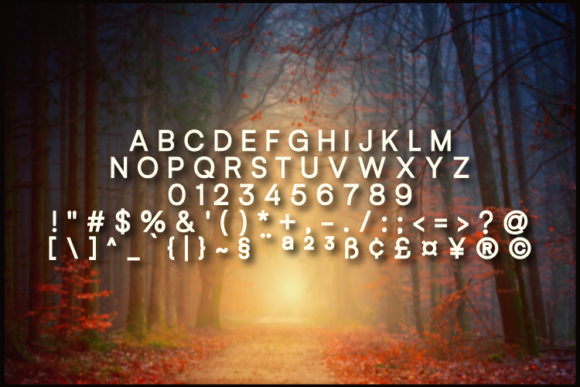
Introduction to Leonare Bold Font
Enter Leonare Bold Font, a stunning sans serif font that exudes a down-to-earth charm, making it an ideal choice for any design endeavor. Whether you’re working on a high-profile project or a personal creative pursuit, Leonare’s versatility and readability ensure it shines on any background – from a busy, transparent background to a simple, elegant design.
Key Features of Leonare Bold Font
- High-quality, professional font suitable for creative projects, including logos, branding, and typography.
- Unique, bold design with a transparent background, making it ideal for use on digital products, web design, and UI/UX projects.
- Designed with a high resolution of 300 DPI, ensuring crisp and clear text, even when scaled up or down.
- Perfect for use in a variety of contexts, including print materials, digital displays, and online content.
- Easy to customize and pair with other fonts, making it a versatile design element for creative projects.
Honest Review: Leonare Bold Font
As a designer, I’m always on the lookout for high-quality design resources to elevate my creative projects. The Leonare Bold Font is one such find that caught my attention recently.
Here are some aspects that work well for this font: ✨
- It’s incredibly versatile and suitable for various design applications, from headings to body text.
- Its bold and modern design makes it perfect for creating eye-catching visuals.
- The font doesn’t come with a transparent background option, which might limit its use in certain design scenarios.
- While it’s a high-quality font, it may not be suitable for designs requiring a more minimalist or subtle approach.
Overall, the Leonare Bold Font is a solid addition to any designer’s toolkit. Its modern design and free download make it an attractive option for creative projects. While it may have some limitations, its strengths far outweigh its weaknesses, making it a valuable resource for designers looking to add some bold flair to their designs.
Leonare Bold Font is a versatile and high-quality design resource that can elevate your creative project. This font is available for free download and features a bold and modern style that is perfect for making a statement.
Leonare Bold Font is perfect for:
Creating eye-catching social media graphics.
Designing logos and brand identities.
Adding a touch of sophistication to presentations and documents.
Is Leonare Bold Font a high-quality design resource?
Yes, Leonare Bold Font is a high-quality design resource that is designed to meet the needs of designers working on creative projects. The font features a clean and modern design, with a wide range of glyphs and characters. It is optimized for use in both digital and print designs, and is suitable for a variety of applications, from logos and branding to web design and advertising.